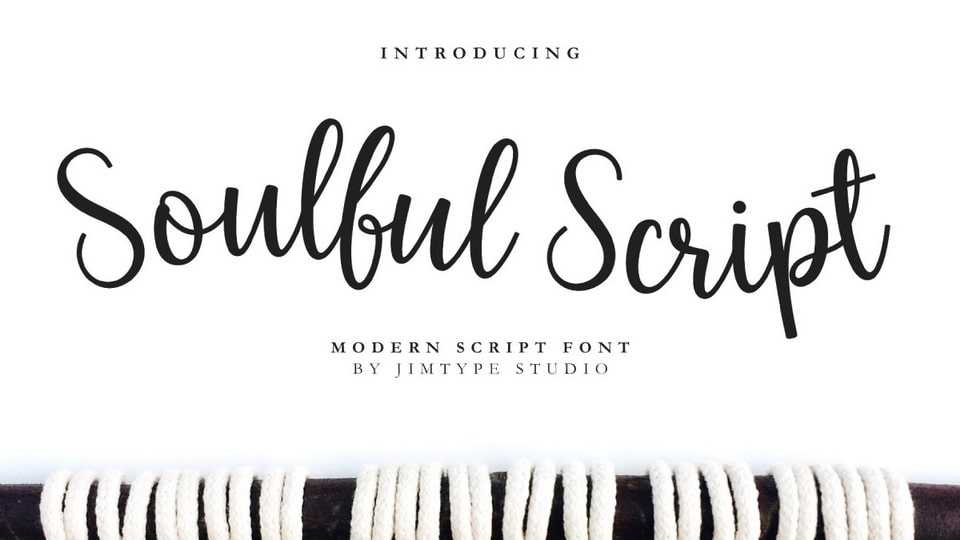
Download Soulful Script font, a captivating script typeface designed to elevate your creative projects. Tailored for branding, logos, packaging, websites, and beyond.